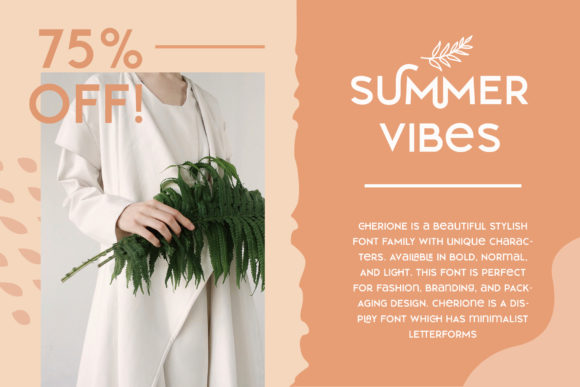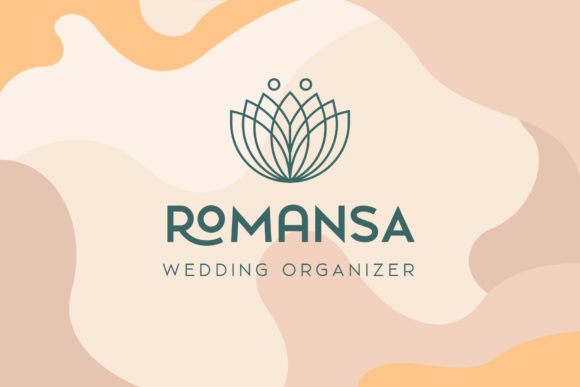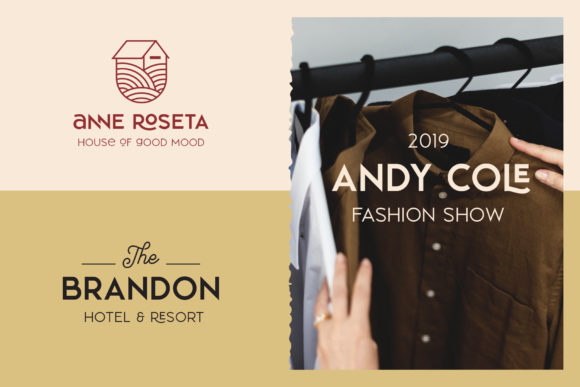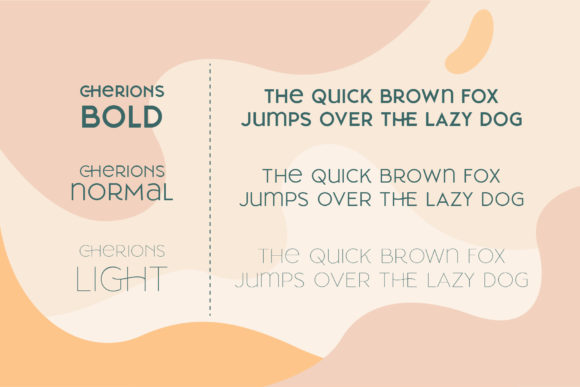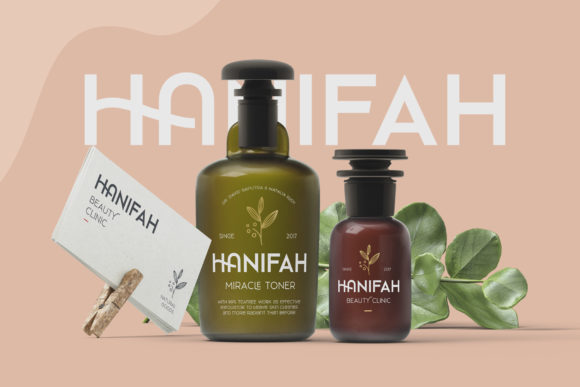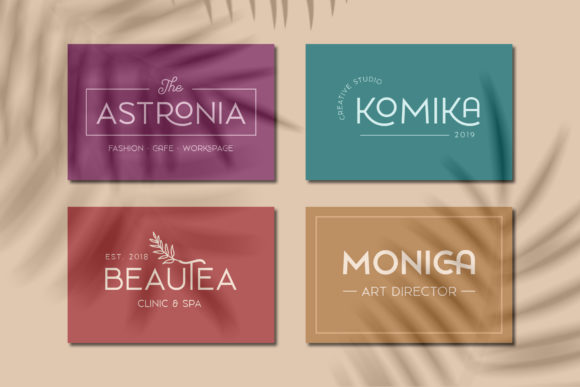
Cherione Font: Elevate Your Design with a Modern, Playful Sans-Serif Font
Are you tired of using the same old fonts in your designs? Look no further than Cherione Font, a modern, yet subtly playful sans-serif font family that’s sure to take your typography to the next level. With its unique blend of elegance and playfulness, Cherione is the perfect choice for designers and crafters looking to add a fresh touch to their work.
A Unique and Playful Design
One of the standout features of Cherione Font is its innovative design. The lowercase letters are the same height as the uppercase letters, giving the font a distinctive and playful look that’s sure to grab attention. But don’t let its playful nature fool you – Cherione is also carefully balanced to look elegant and minimalist, making it perfect for a wide range of design applications.
Three Weights for Maximum Versatility
Cherione Font family consists of three weights: Light, Normal, and Bold. This range of weights gives you maximum versatility, allowing you to use the font in a variety of contexts, from body text to headings and titles. Whether you’re designing a website, a brochure, or a social media graphic, Cherione has got you covered.
30+ Unique Ligatures for Endless Typography Possibilities
But what really sets Cherione apart is its extensive range of ligatures – 30+ unique ligatures that give you endless possibilities for typography design. Ligatures are special characters that combine two or more letters into a single glyph, creating a seamless and elegant look that’s perfect for titles, headings, and other display text. With Cherione, you can experiment with different ligatures to create unique and eye-catching typography that’s sure to impress.
Complete with Accents, Swashes, and Alternates
Cherione Font is also complete with accents, swashes, and alternates, giving you even more flexibility and creative control. Accents allow you to add a touch of personality to your text, while swashes and alternates provide additional options for customizing your typography. Whether you’re designing a logo, a poster, or a business card, Cherione’s got everything you need to create stunning text.
Cherione Font is perfect for designers and crafters who want to add a modern and playful touch to their work. Whether you’re creating digital content, such as websites and social media graphics, or physical products, like brochures and posters, Cherione is the perfect choice. Its unique design and extensive range of features make it an ideal font for:
- Web design: Use Cherione to create stunning website headers, titles, and body text that’s sure to engage your visitors.
- Graphic design: Add a touch of elegance and playfulness to your brochures, posters, and business cards with Cherione.
- Social media graphics: Create eye-catching social media graphics with Cherione’s unique ligatures and swashes.
- Branding: Use Cherione to create a consistent brand identity across all your marketing materials.
In conclusion, Cherione Font is a modern, playful sans-serif font family that’s perfect for designers and crafters looking to elevate their typography. With its unique design, extensive range of features, and versatility, Cherione is sure to become a go-to font in your design arsenal. So why wait? Download Cherione Font today and start creating stunning text that’s sure to impress.
Get Creative with Cherione Font
Ready to get creative with Cherione Font? Here are some tips to get you started:
- Experiment with different ligatures to create unique and eye-catching typography.
- Use the three weights to create visual hierarchy and emphasis in your text.
- Add a touch of personality to your text with accents, swashes, and alternates.
- Pair Cherione with other fonts to create stunning contrast and visual interest.